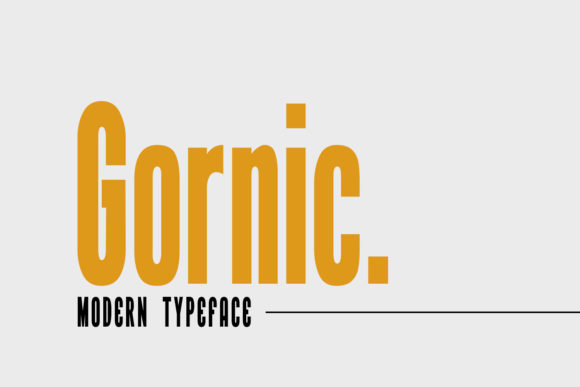
Unleash the Power of Gornic Font: A Bold and Distinctive Display Typeface for Your Creative Resume
In the realm of professional branding, a captivating resume holds the key to unlocking career opportunities and making a lasting impression. Introducing Gornic Font, a groundbreaking display font designed to elevate your resume with its bold, thick letters and unwavering confidence. This exceptional font, meticulously crafted by Design Stag, is the epitome of creativity, turning your resume into a visual masterpiece that demands attention.
With Gornic Font, you'll embark on a journey of self-expression, showcasing your skills and accomplishments in a manner that resonates with hiring managers and recruiters. Its striking presence commands attention, while its carefully chosen letterforms convey professionalism and a touch of intrigue. Whether you're seeking a career in design, marketing, or any other creative field, Gornic Font will serve as your steadfast companion, amplifying your message and leaving an unforgettable mark.
As you delve into the depths of Gornic Font, you'll discover a font family brimming with versatility. Its bold strokes lend themselves effortlessly to headlines, titles, and impactful quotes, while its carefully crafted curves add a touch of elegance to body text. Experiment with different sizes and weights to create a visual hierarchy that guides the reader's eye through your resume, ensuring that your most important information takes center stage.
Beyond its visual appeal, Gornic Font embodies a spirit of creativity and innovation. Its unique character set, including stylish ligatures and alternate glyphs, empowers you to add a personal touch to your resume, reflecting your individuality and standing out from the crowd. Embrace the boundless possibilities of Gornic Font and transform your resume into a captivating narrative that speaks volumes about your talent and dedication.